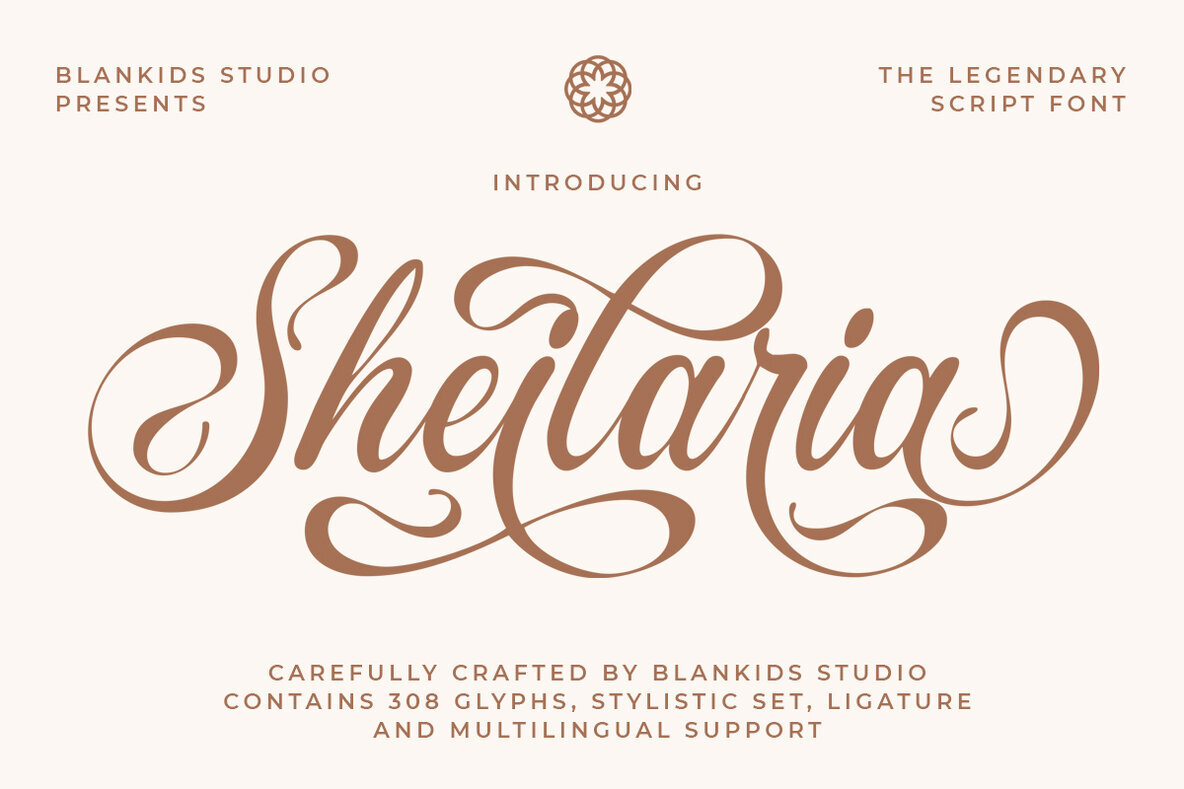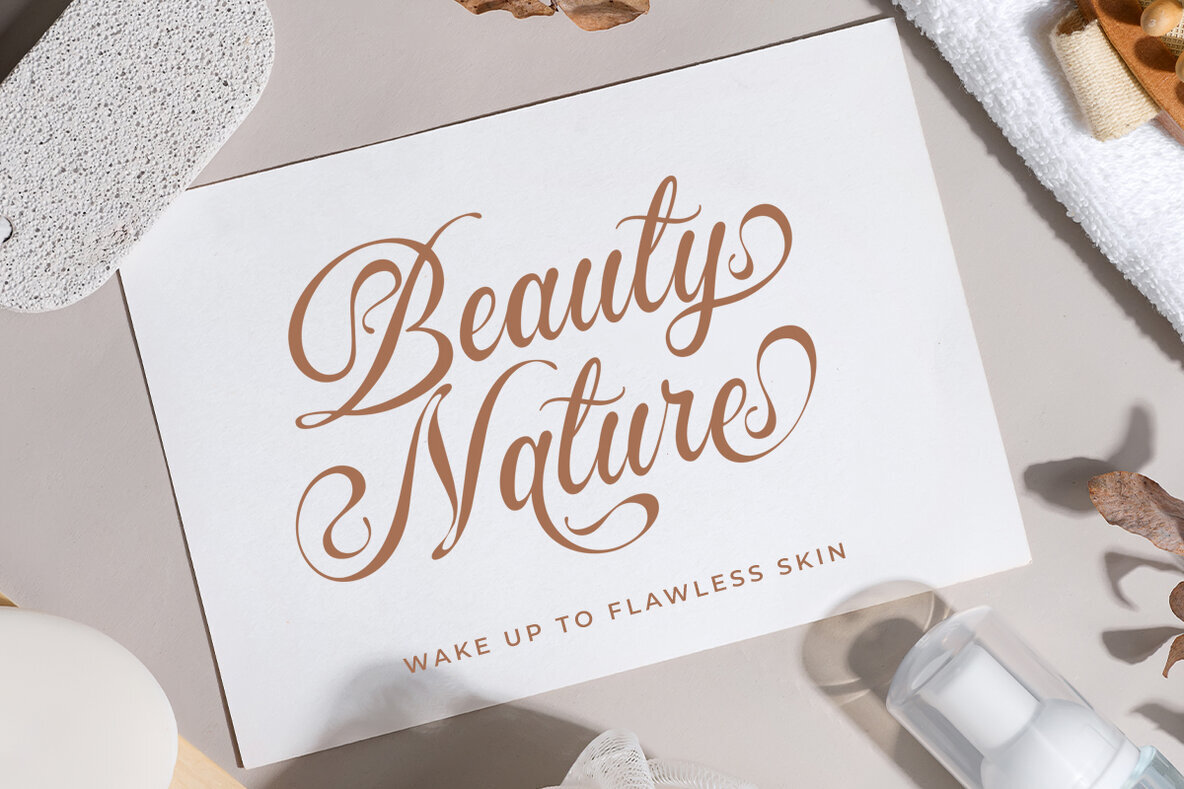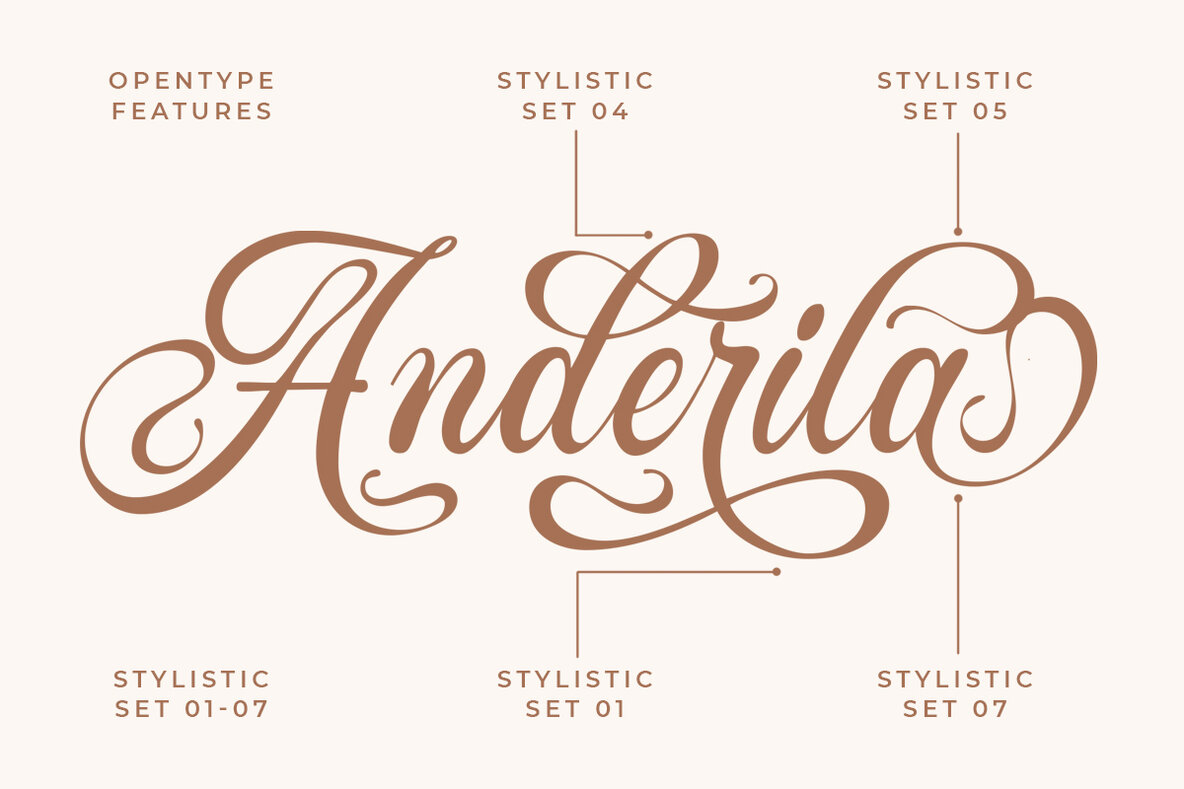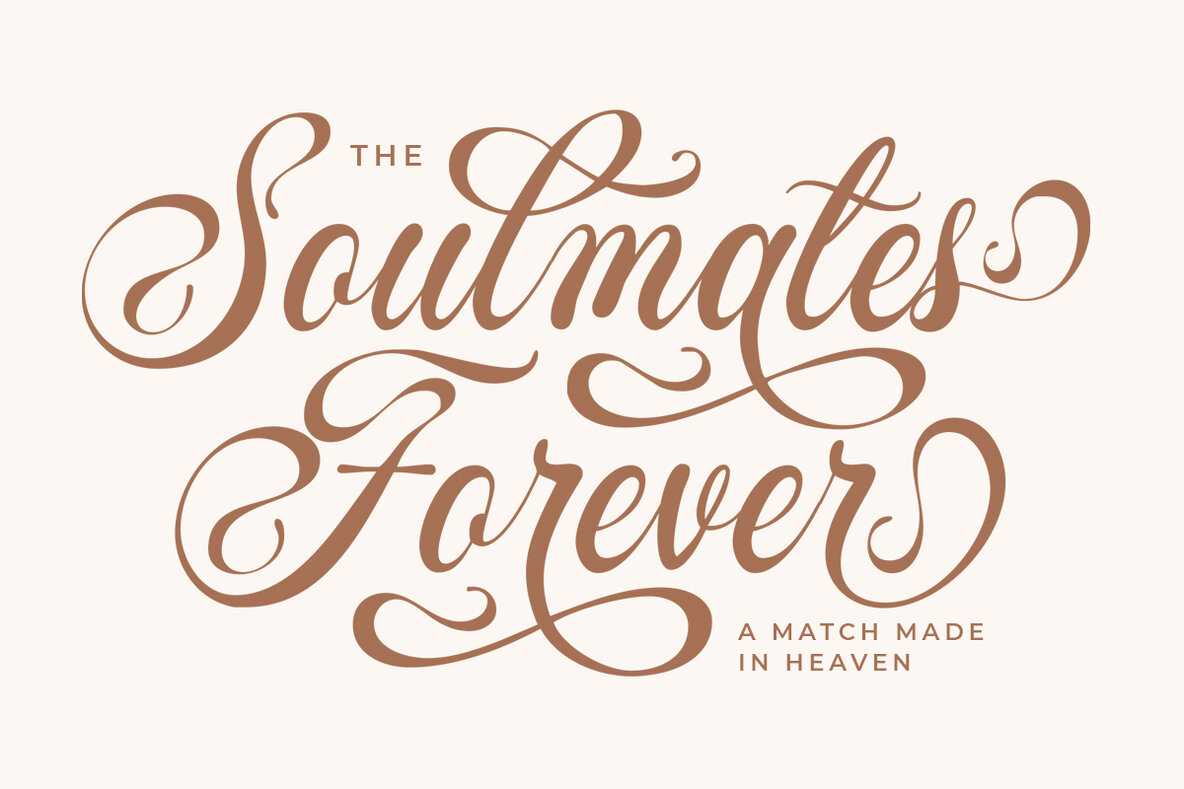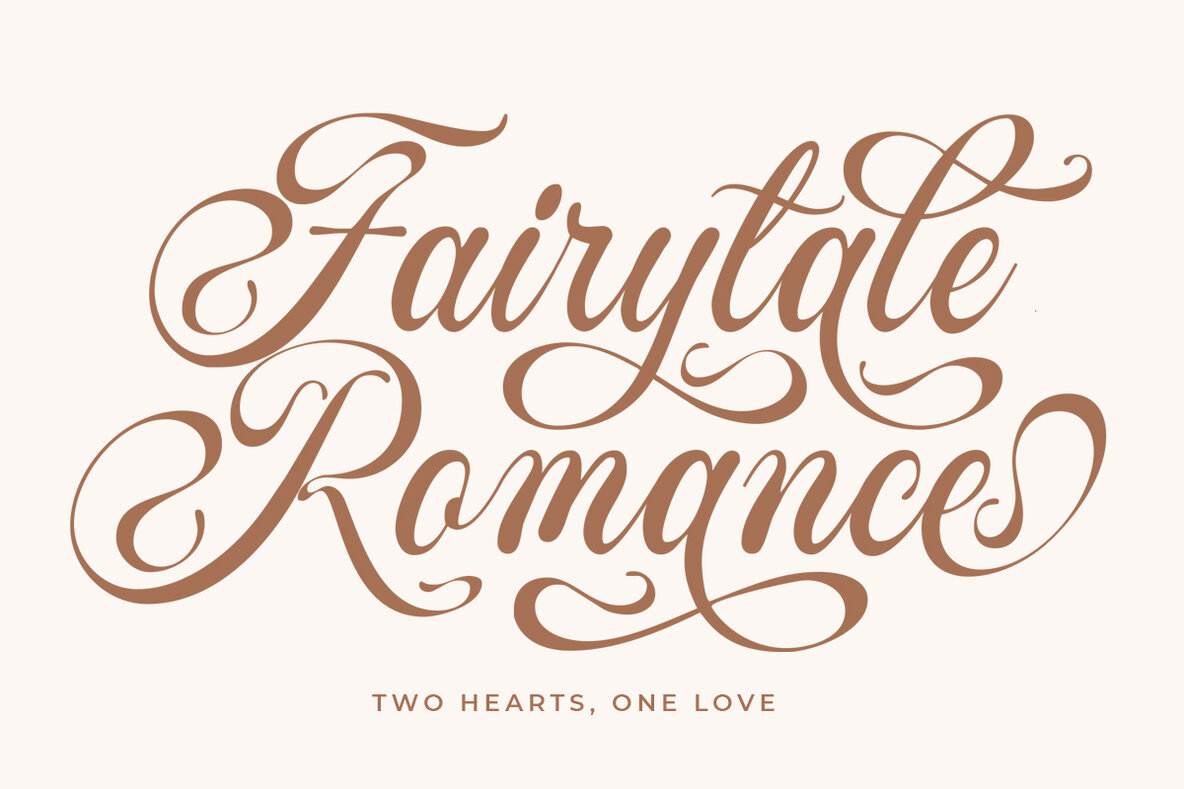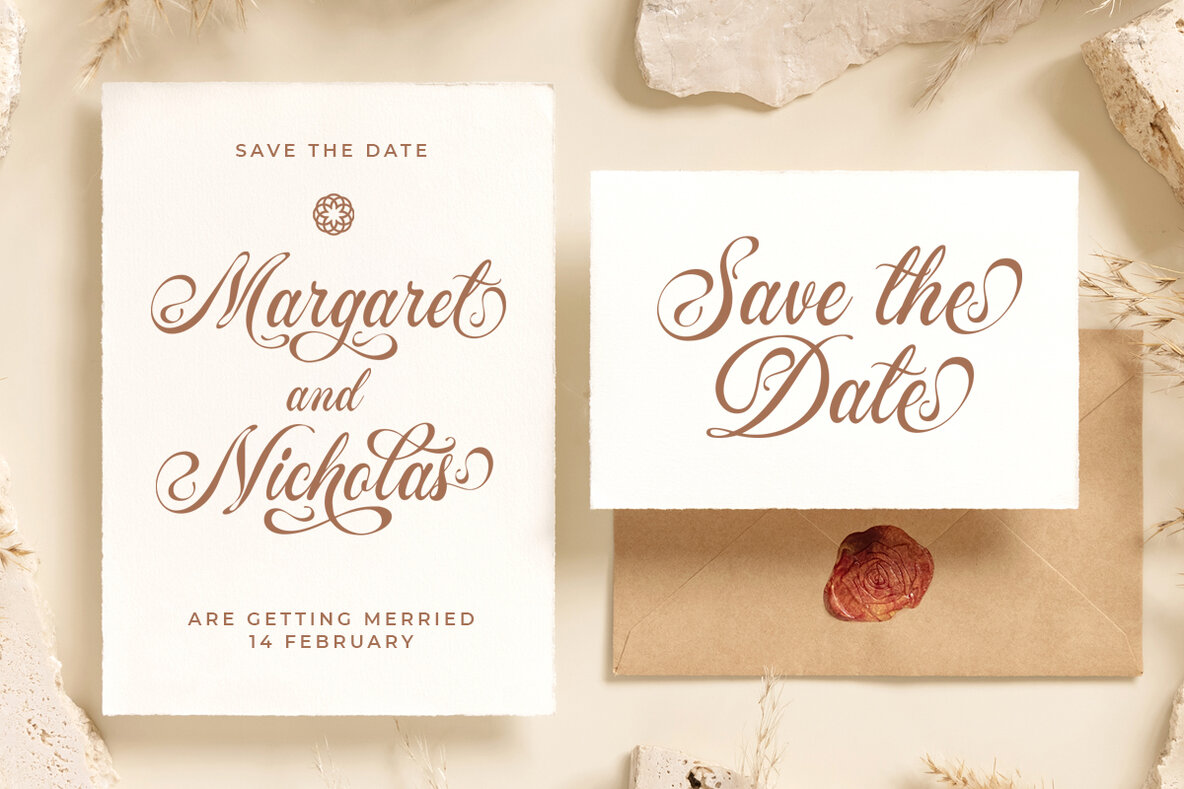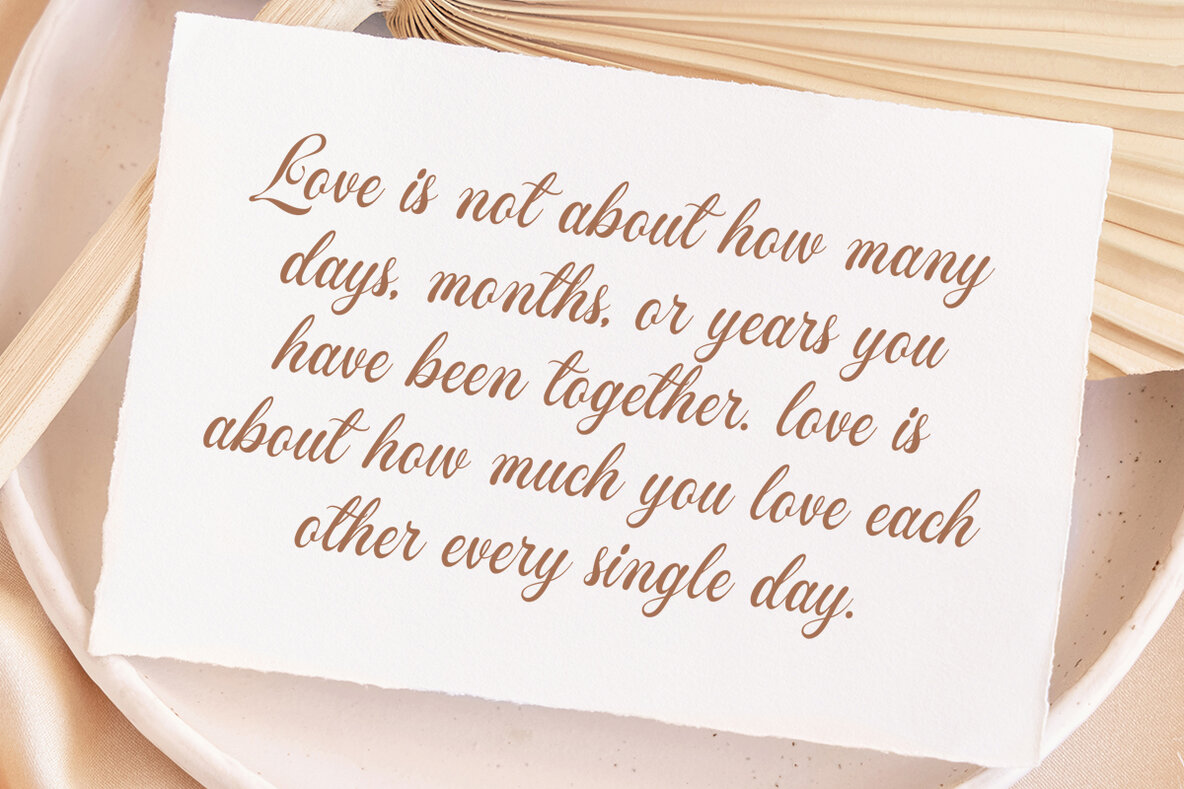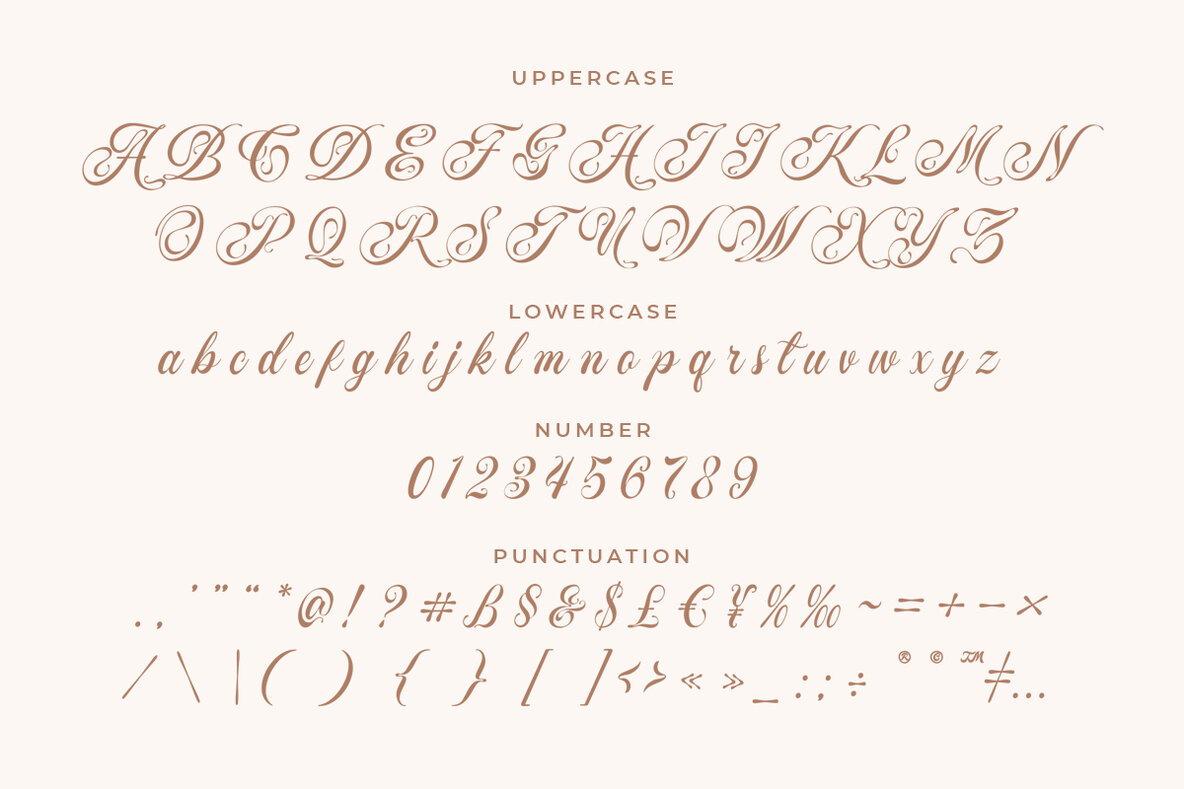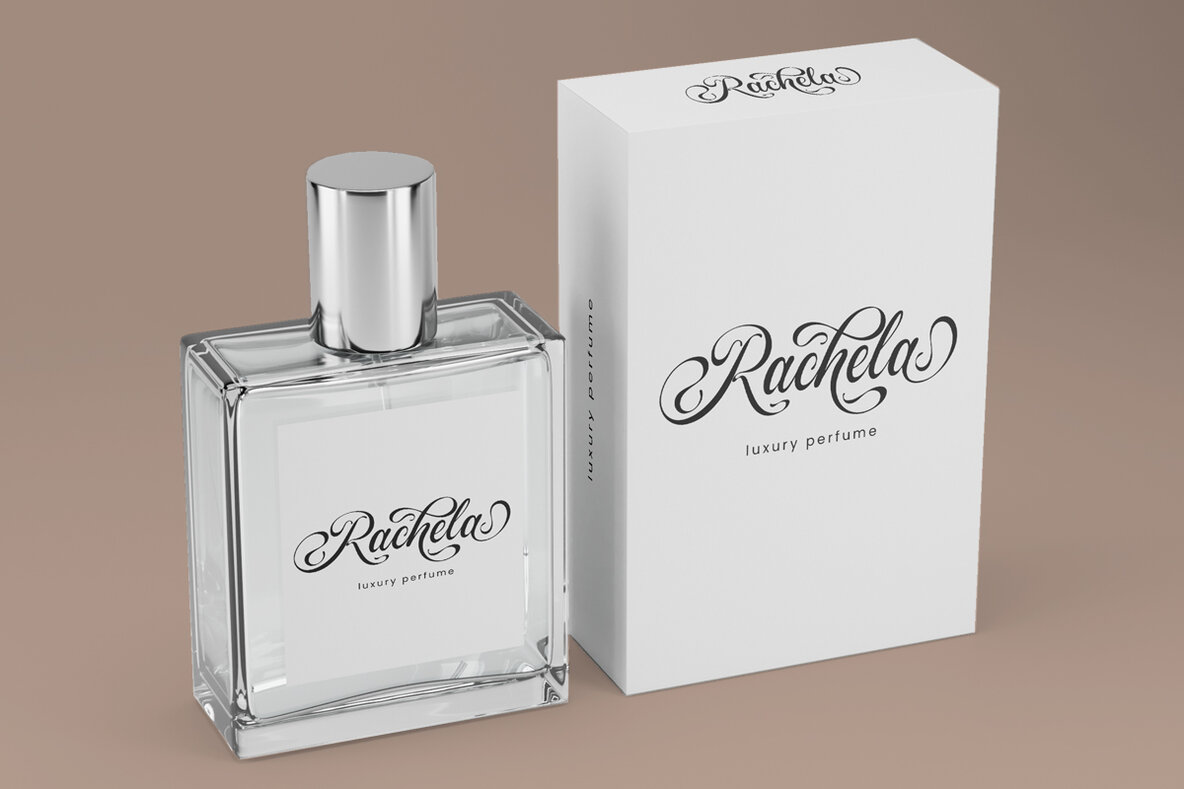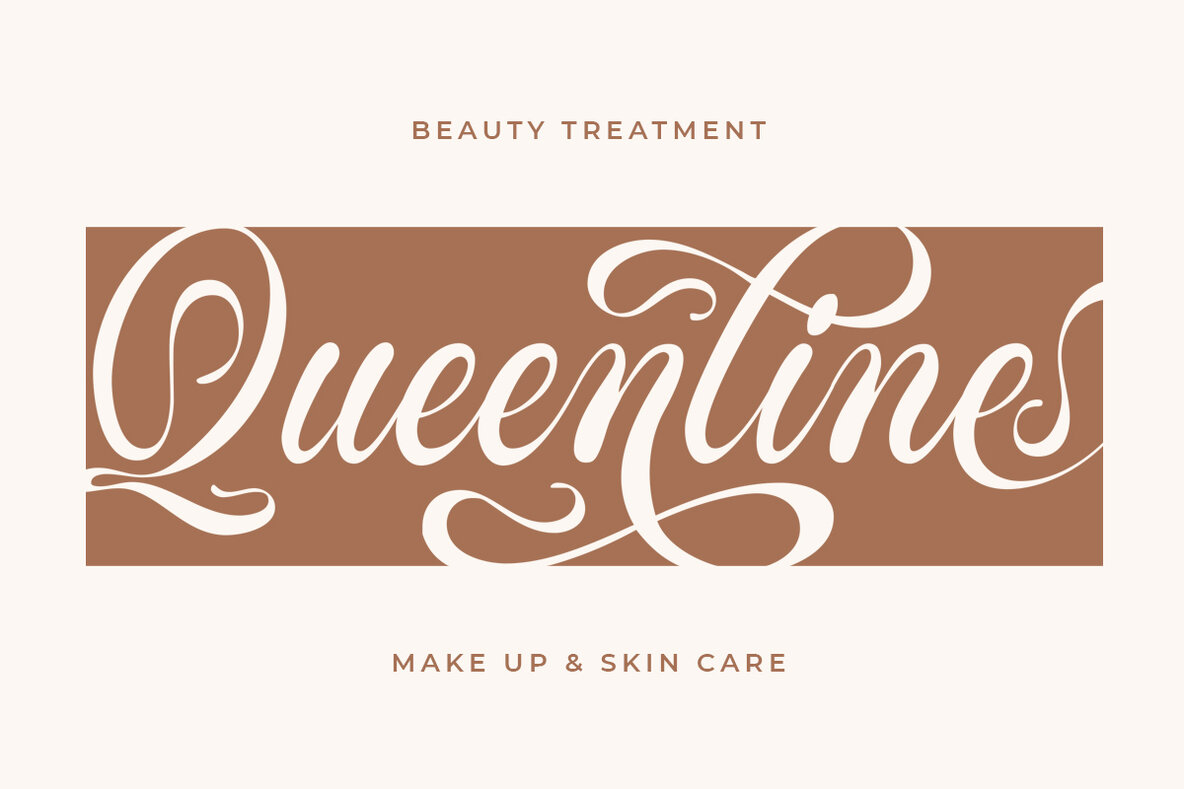
Sheilaria Font
Sheilaria Regular
Sheilaria is an exceptional script font tailored to enhance professional branding experiences. Its graceful, calligraphic style infuses a sense of refinement across various applications, from logotypes and wedding invitations to posters and product packaging. This font is an ideal choice for those aiming to introduce elegance into their creative projects. With its versatile design, Sheilaria invites endless creativity, making it a perfect match for any artistic endeavor seeking sophistication.Sheilaria: Classic Script for Elegant Branding